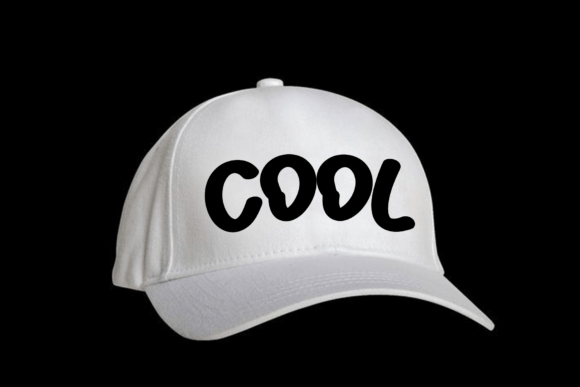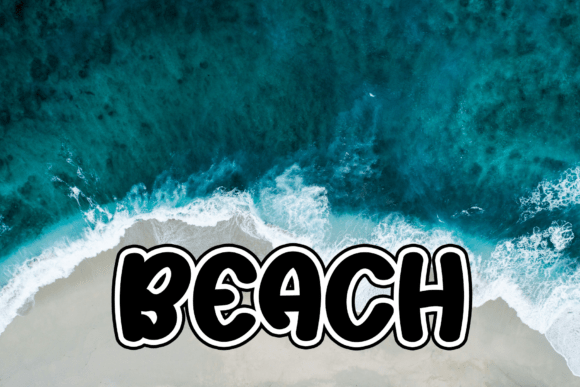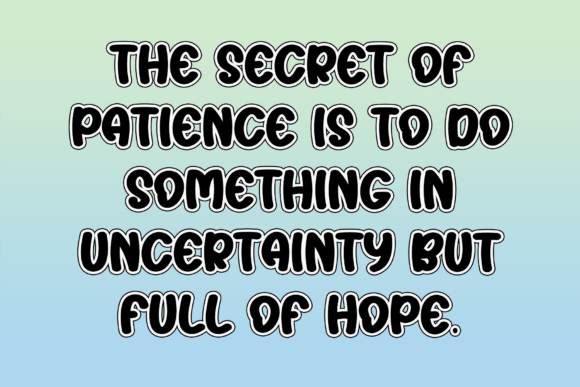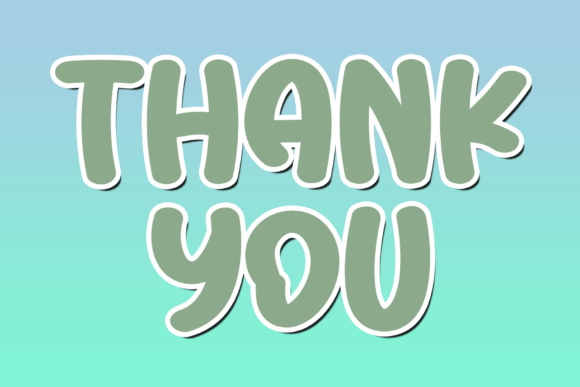
Discover the Charm of Enjoy Fresh Font: Elevate Your Designs with a Lovely Handwritten Style
Are you on the hunt for a font that adds a personal touch to your designs? Look no further than Enjoy Fresh, a lovely and timeless handwritten font that’s perfect for creating eye-catching logos, branding, and quotes. With its unique and beautiful touch, Enjoy Fresh is sure to make your design come alive!
Handwritten fonts have a way of adding a personal and human touch to designs. They evoke emotions and create a sense of connection with the viewer. Unlike generic fonts, handwritten fonts are unique and can help your brand stand out from the crowd. Enjoy Fresh is a stunning example of a handwritten font that can elevate your designs and make them more engaging.
What Makes Enjoy Fresh Font Special?
Enjoy Fresh is a carefully crafted font that boasts a range of characteristics that make it perfect for designers and crafters. Here are just a few reasons why Enjoy Fresh stands out:
• Unique and Beautiful Touch: Every letter in Enjoy Fresh has a unique and beautiful touch that adds a personal touch to your designs. The font’s handmade nature ensures that no two letters are alike, giving your designs a one-of-a-kind feel.
• Lovely and Timeless: Enjoy Fresh is a timeless font that will never go out of style. Its classic look and feel ensure that your designs will remain relevant for years to come.
• Eye-Catching: Enjoy Fresh is perfect for creating eye-catching logos, branding, and quotes. Its elegant and refined look is sure to grab attention and leave a lasting impression.
• Versatile: Enjoy Fresh is a versatile font that can be used for a wide range of design projects, from branding and advertising to packaging and crafting.
How to Use Enjoy Fresh Font in Your Designs
Using Enjoy Fresh in your designs is easy. Here are a few tips to get you started:
• Logos and Branding: Use Enjoy Fresh to create stunning logos and branding materials that reflect your brand’s personality and style.
• Quotes and Typography: Add a personal touch to your quotes and typography with Enjoy Fresh. The font’s elegant look is perfect for creating inspiring and thought-provoking quotes.
• Crafting and DIY: Enjoy Fresh is perfect for crafters and DIY enthusiasts. Use the font to add a personal touch to your handmade projects, such as cards, invitations, and gift tags.
Tips for Getting the Most Out of Enjoy Fresh Font
Here are a few tips for getting the most out of Enjoy Fresh:
• Experiment with Colors: Enjoy Fresh looks stunning in a range of colors. Experiment with different colors to find the perfect combination for your design.
• Mix and Match: Don’t be afraid to mix and match Enjoy Fresh with other fonts. The font’s unique look pairs well with a range of other fonts, creating a stunning visual effect.
• Pay Attention to Kerning: As with any font, pay attention to kerning to ensure that your text looks professional and polished.
Enjoy Fresh is a lovely and timeless handwritten font that’s perfect for designers and crafters. With its unique and beautiful touch, Enjoy Fresh is sure to make your design come alive! Whether you’re creating logos, branding, or quotes, Enjoy Fresh is the perfect choice. So why wait? Download Enjoy Fresh today and start elevating your designs with a personal touch!